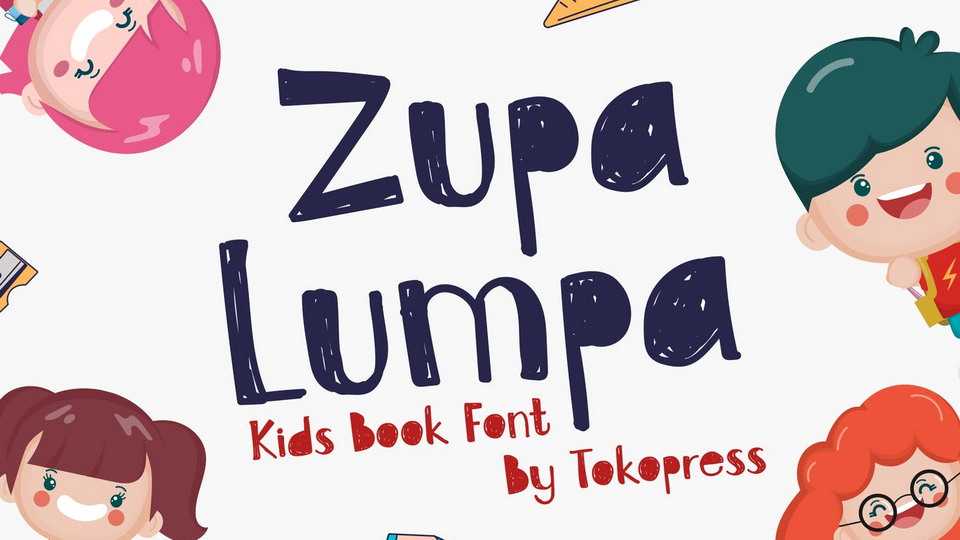
Download Zupa Lumpa font, a cute kids typeface. It looks like scribble writing with all that clumsiness that children have in their color blocking. Zupa Lumpa is a perfect touch for any children related projects.